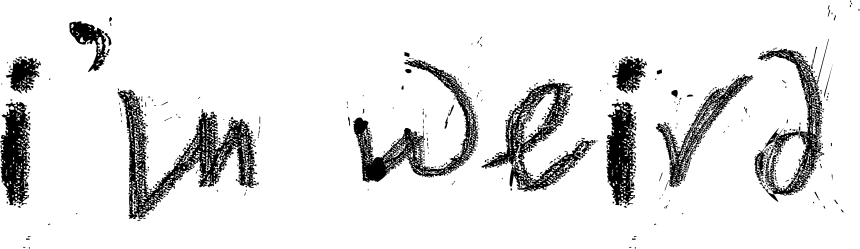
I’m Weird Font
I’m Weird is a sketch font that you can make use of for different types of projects and accomplish the mission. The letters with fragile and skinny style give a casual vibe. Apply it to flyers, graffiti projects, books,…
I’m Weird is a sketch font that you can make use of for different types of projects and accomplish the mission. The letters with fragile and skinny style give a casual vibe. Apply it to flyers, graffiti projects, books, and other needs. By the way, the uppercase letters aren’t included. Want more? Visit our virtual library.
i’mWeird is handwritten font made by Subhashish Panigrahi.